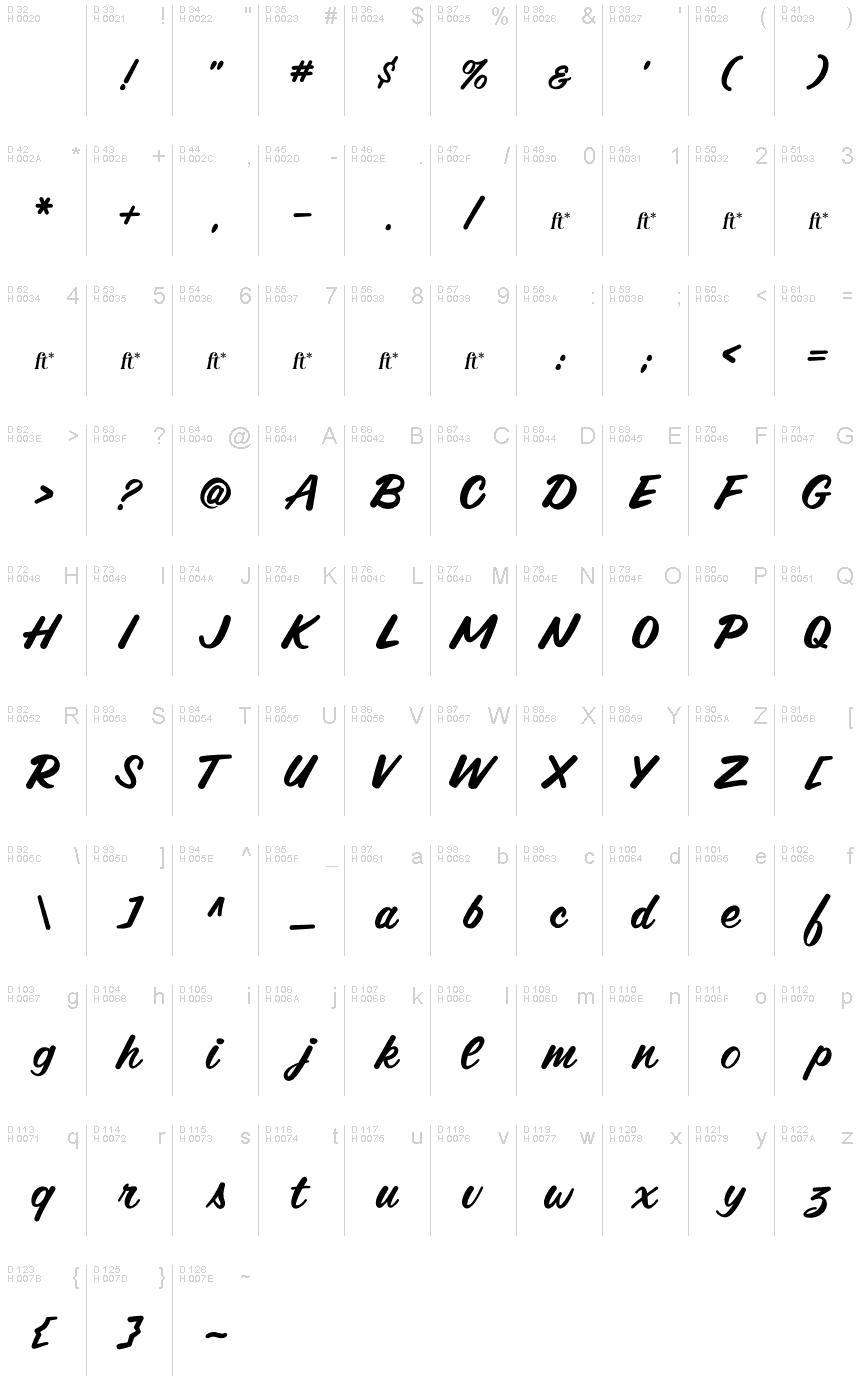
Valdice
Valdice is a bold and beautiful handwritten font that brings a unique touch of personality to any project. Designed by Firstype Studio, this font features thick lines and a charmingly imperfect style that captures the essence of handwriting. Perfect for everything from greeting cards to social media graphics, Valdice adds a touch of warmth and authenticity to any design. Its bold weight makes it ideal for headlines or titles that need to stand out. Use Valdice for anything from wedding invitations to product labels, and let the handwritten charm take your designs to the next level.